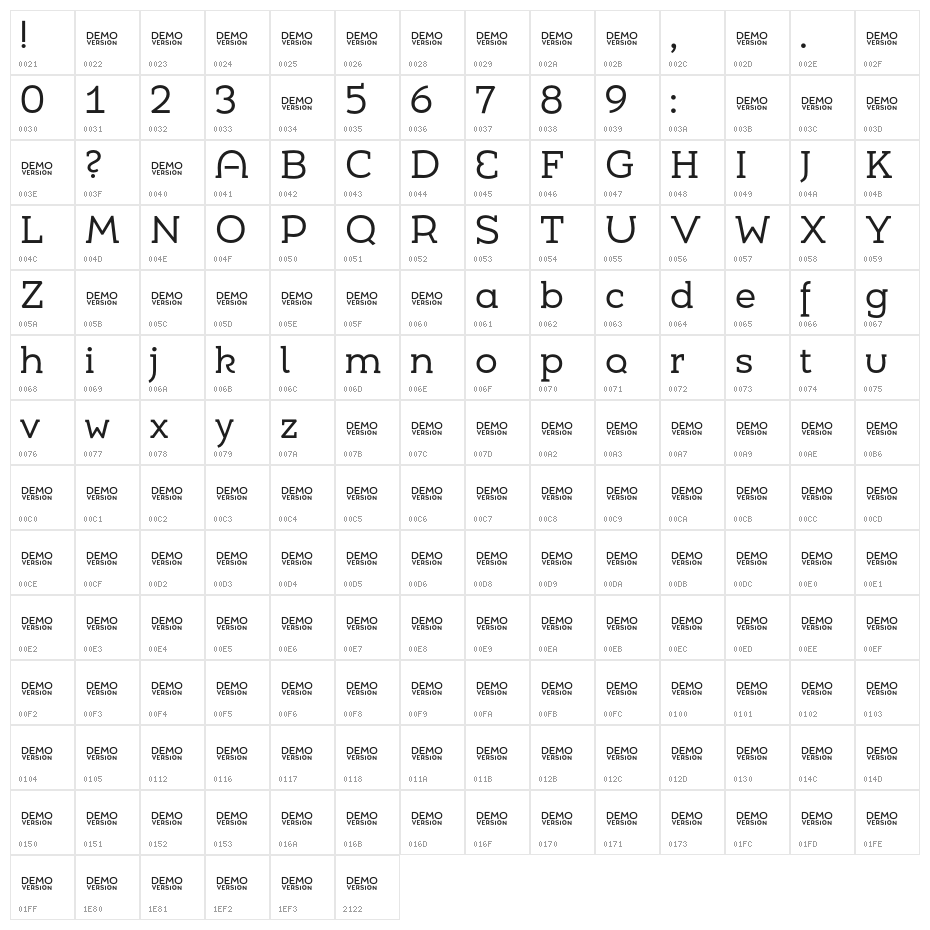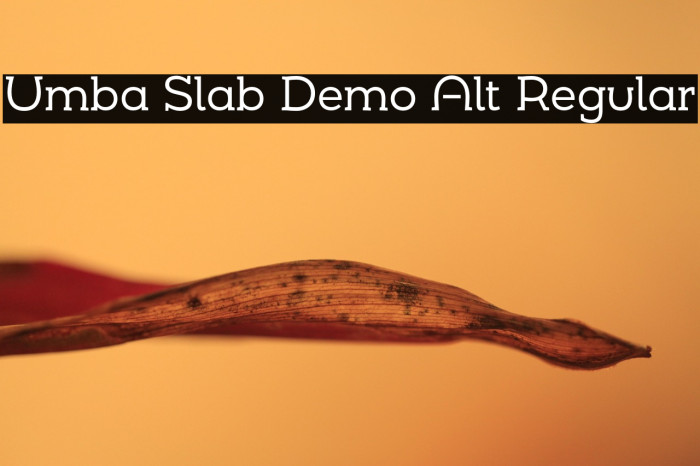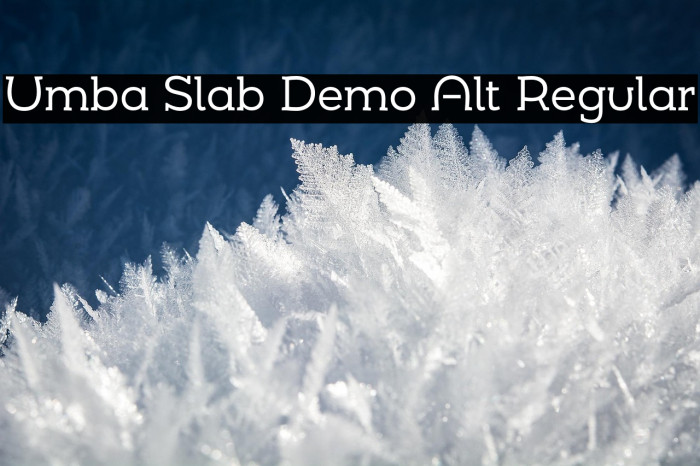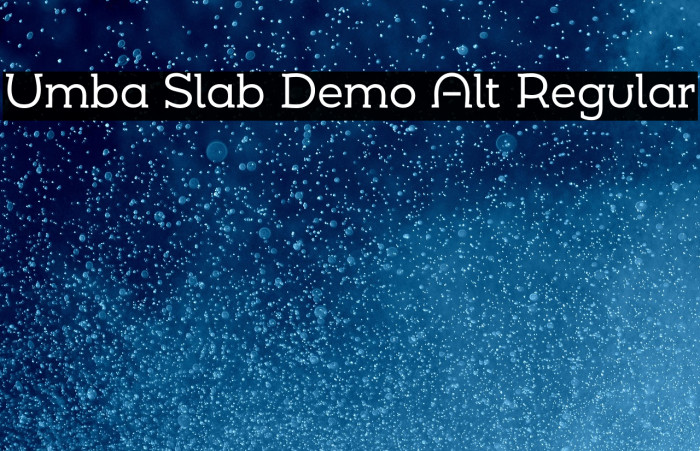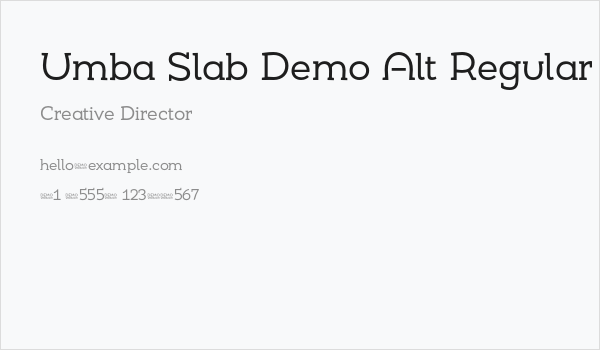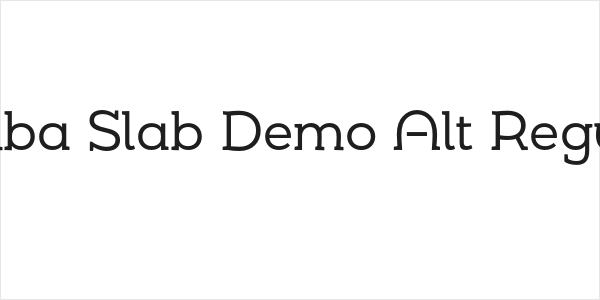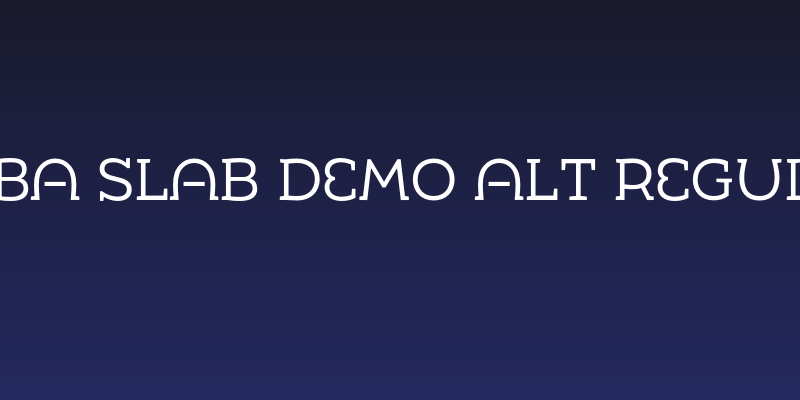
Umba Slab Demo Alt Regular Font
Umba Slab Demo Alt Regular Description
This font is a modern slab serif with a clean and structured appearance. It features strong, geometric shapes with consistent stroke widths, giving it a bold and confident look. The uppercase letters are tall and commanding, while the lowercase letters maintain a balanced and approachable feel. The numerals are clear and easy to read, making them suitable for various applications. Special characters are well-integrated, maintaining the overall aesthetic. The font's design is versatile, making it suitable for both digital and print media. Its contemporary style is perfect for projects that require a professional and polished appearance.